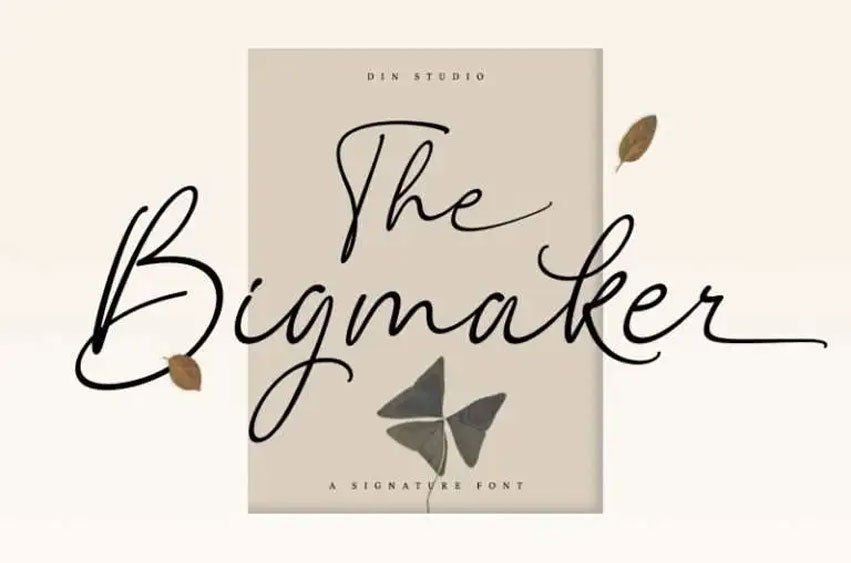
The Bigmaker Font is a signature font. A hand crafted font is elegant and has smooth lines which makes it suitable for use in websites, social media page branding, Pinterest banners, invitations and many more!
Uplift your audience, attendees, clients, or customers with this beautiful signature style font. Have a look at the examples below to see ideas on how to apply this font family in your next project.